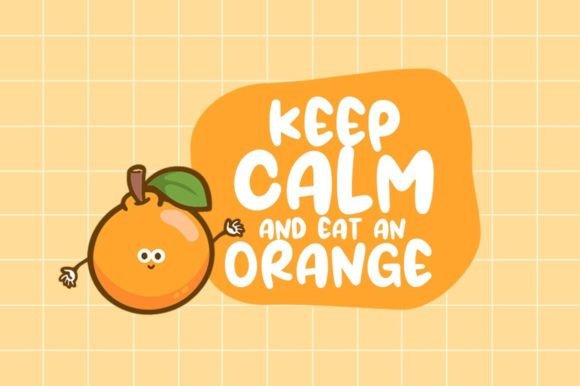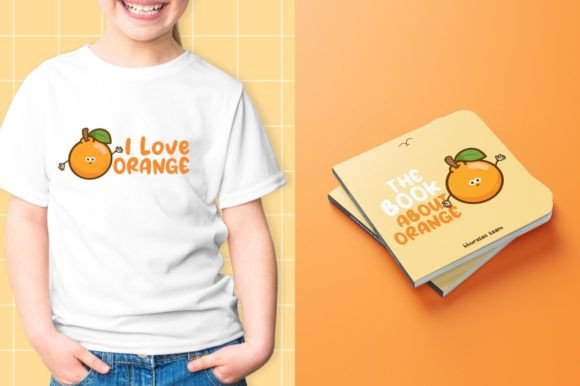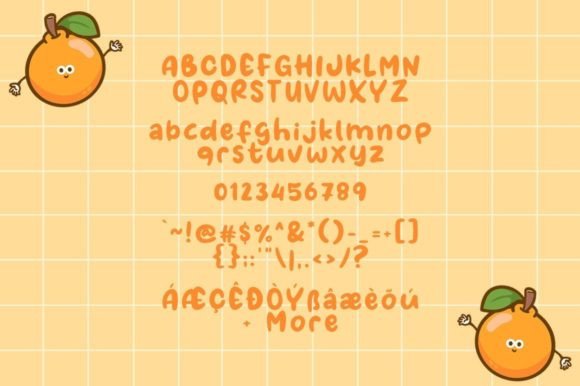
Introduction to Orange Days Font
Have you ever stared at a blank canvas, trying to spark a creative idea for your next design project? The blank page can be daunting, but what if you had the perfect tool to ignite your imagination? For designers seeking a fun and cool display font, Orange Days Font is the ultimate game-changer.
With its playful touch, Orange Days Font is the perfect choice for cartoon-related designs, children’s games, or any creation that requires a whimsical feel. Whether you’re working on a high-quality design project or just need a reliable design resource, this font is sure to deliver. Its transparent background makes it easy to incorporate into your creative project, and the best part? It’s available for free download, making it a valuable asset for designers of all levels.
Key Features of Orange Days Font
- High-quality design resource ideal for creative projects, with a unique and modern style.
- Features a bold and eye-catching design, perfect for headings, titles, and other prominent text elements.
Honest Review: Orange Days Font
I recently had the chance to work with the Orange Days Font, and I must say it’s been a game-changer for my design projects. This font has quickly become one of my go-to resources for creative projects that require a unique and high-quality look.
One of the things that I love about the Orange Days Font is its versatility. It works well for a variety of design applications, from headings and titles to body text and even logos. The font is available for free download, making it an excellent resource for designers on a budget.
- High-quality design that stands out from the crowd ✨
- Works well on transparent backgrounds ✨
- Limited character set, which may be a issue for designers who need to support multiple languages ⚠️
- No support for OpenType features, which may limit its use in certain design applications ⚠️
Overall, I’m thoroughly impressed with the Orange Days Font. It’s a high-quality design resource that’s perfect for creative projects. With its versatility and free download option, it’s a must-have for any designer looking to elevate their work.
The Orange Days Font is a high-quality, versatile font ideal for any creative project. With its unique style and transparent background, it’s perfect for adding a touch of sophistication to your designs.
Tips for Getting the Most Out of Orange Days Font
To get the most out of the Orange Days Font, try combining it with other design elements, such as bold colors and textures, to create a unique and eye-catching design.
The Orange Days Font is ideal for a variety of creative projects, including:
- Posters and social media graphics